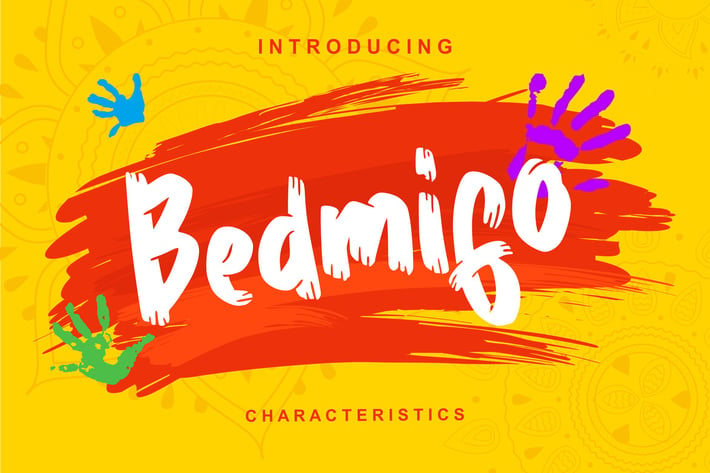
Bedmifo | Characteristics Script Font
Bedmifo | Characteristics Script Font with a calligraphy style, So beautiful on invitation like greeting cards, branding materials, business cards, quotes, posters, and more!